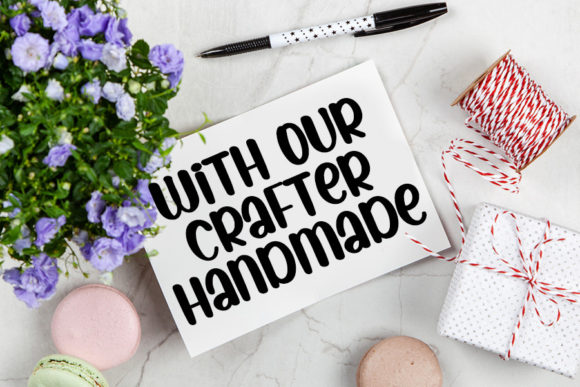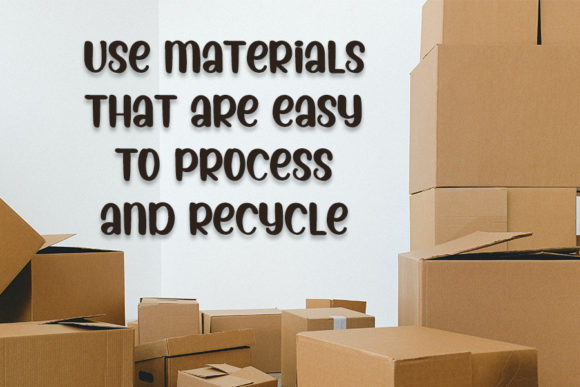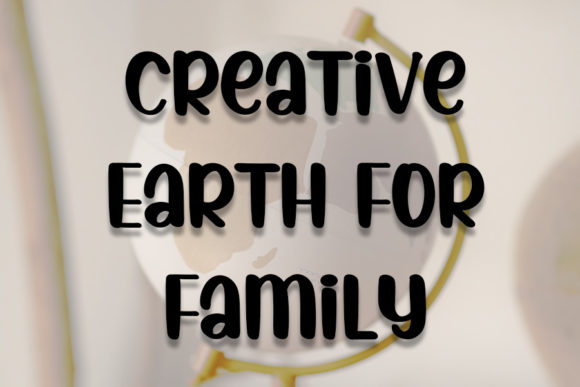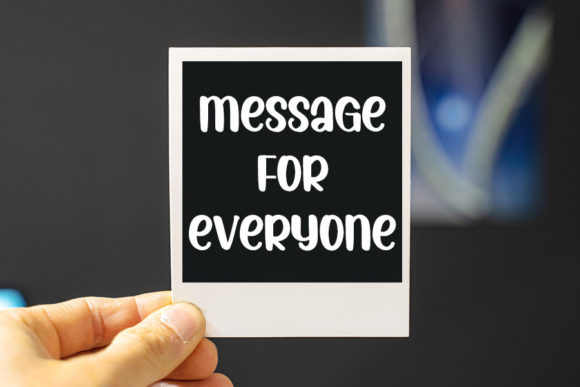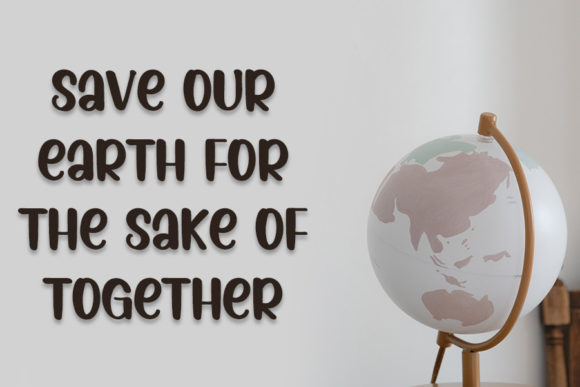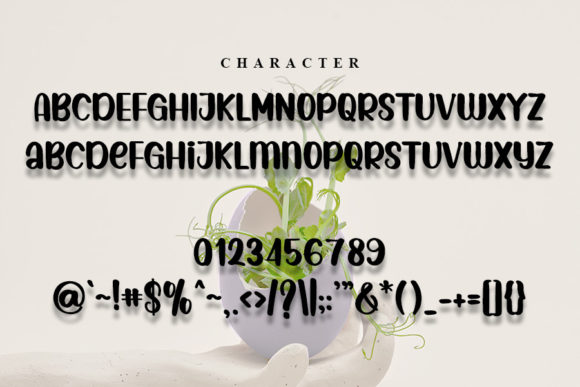
Introduction to Smile Earth Font
Smile Earth is a stylish handwritten font with a contemporary atmosphere and impeccable form, inspired by a timeless classic calligraphy.
Balanced and varied, this font was designed to enhance the beauty of your projects .
Key Features of Smile Earth Font
Why Choose Smile Earth Font?